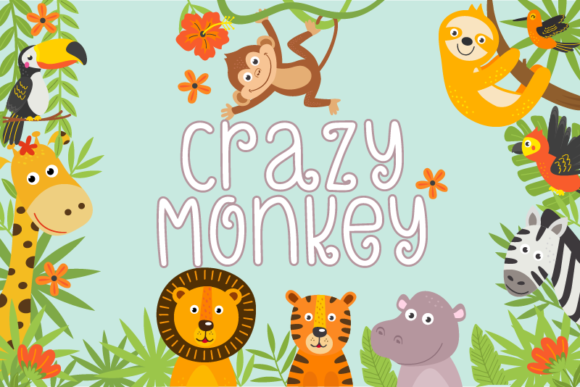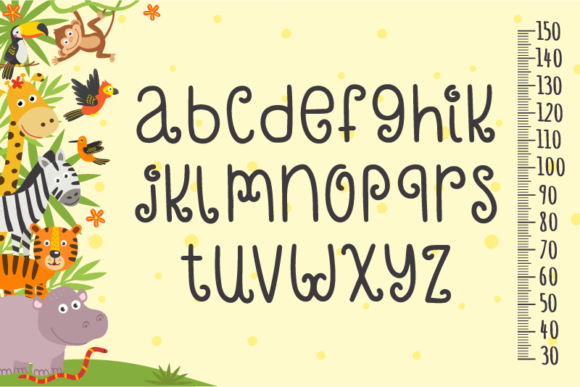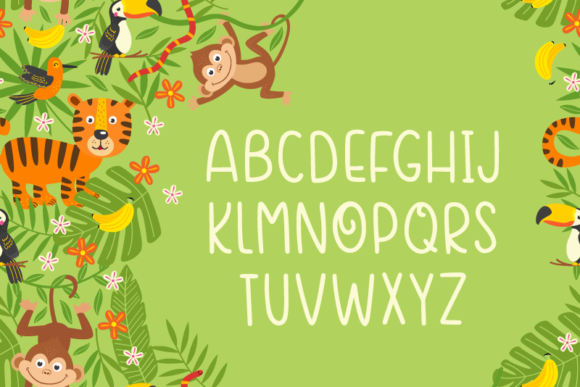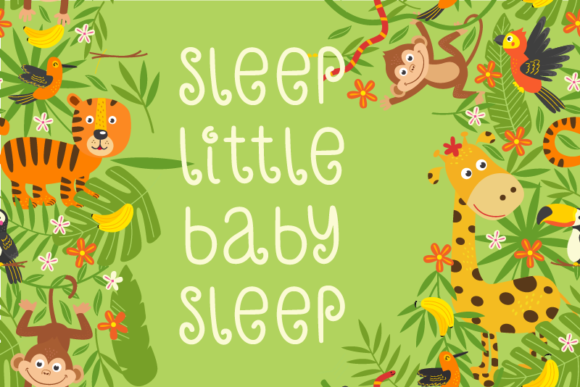
The Perfect Brushstroke: Unleashing the Whimsy of Crazy Monkey Font
Remember the thrill of discovering that perfect font that makes your design pop? It’s like stumbling upon a hidden treasure, isn’t it? The search for that unique, one-of-a-kind font that elevates your creation from ordinary to extraordinary is a journey many designers know all too well. For those who crave a dash of whimsy and a pinch of personality in their designs, the Crazy Monkey Font is the perfect find.
As a chic and handwritten font, Crazy Monkey is designed to add a customized touch to any project. Whether you’re crafting wedding invitations, thank you cards, or logos, this font is sure to bring a smile to your client’s face. And for designers, the value lies in its versatility and the endless possibilities it offers to create truly unique and memorable designs.
Crazy Monkey Font Key Features
- Font Family: Crazy Monkey Font is a sans-serif font family designed for digital use.
- Character Set: Supports a wide range of characters, including Latin, Cyrillic, and Greek alphabets, as well as punctuation and symbols.
- Unique Characteristics: Features a unique blend of quirky and modern elements, making it suitable for creative and playful designs.
- Size: The font family includes a range of weights, from Light to Bold, allowing for flexibility in design applications.
Crazy Monkey Font Review
I have to say, the Crazy Monkey Font is quite a unique and quirky addition to any design project. Here are some things that work well: ✨
- Playful and energetic vibe: This font is perfect for projects that need a bit of excitement and whimsy.
- High-quality glyphs: The font’s glyphs are well-designed and look great at various sizes and resolutions.
- Good legibility: Despite its playful nature, the font is still easy to read, even in smaller sizes.
- Limited font styles: The font only comes in a few styles, which may limit its versatility in certain projects.
- Not suitable for formal projects: Due to its playful nature, this font may not be the best choice for formal or professional projects.
- Not fully optimized for web use: While the font looks great on screen, it may not be fully optimized for web use, which could lead to issues with font rendering.
Overall, I think the Crazy Monkey Font is a great addition to any designer’s toolkit. While it may not be suitable for every project, it’s perfect for projects that need a bit of energy and whimsy. With a bit of careful planning and consideration, this font can add a lot of value to your designs.
Crazy Monkey Font Practical Application Guide
Use the Crazy Monkey Font to add a playful touch to your designs. Pair it with bold colors and graphics to create a fun and energetic vibe. Experiment with different font sizes and styles to add depth and interest to your text.
The Crazy Monkey Font is perfect for:
- Playful marketing materials
- Fun and quirky social media graphics
- Custom invitations and party decorations
Alternatives to Crazy Monkey Font
Great Vibes is a modern, hand-drawn font with a playful and energetic feel. It’s ideal for use in titles, headings, and other text where you want to convey a sense of fun and excitement.
Compared to Crazy Monkey Font, Great Vibes has a more polished and refined look, with more precise letterforms and a consistent style throughout. It’s also more versatile, with a wider range of font weights and styles available.
Alex Brush is a elegant, handwritten font with a sophisticated and artistic feel. It’s perfect for use in titles, headings, and other text where you want to convey a sense of creativity and individuality.
Compared to Crazy Monkey Font, Alex Brush has a more refined and sophisticated look, with more intricate letterforms and a unique, cursive style. It’s also more suitable for use in formal or creative contexts, rather than casual or playful ones.
Q: What is the recommended font size and line height for the Crazy Monkey Font?
The recommended font size for the Crazy Monkey Font is between 12pt and 24pt, depending on the desired level of legibility and visual impact. For body text, we recommend using a font size of 14pt or 16pt, with a line height of 1.2 to 1.5 times the font size. For headings and titles, you can use a larger font size, up to 48pt or more, with a corresponding increase in line height.